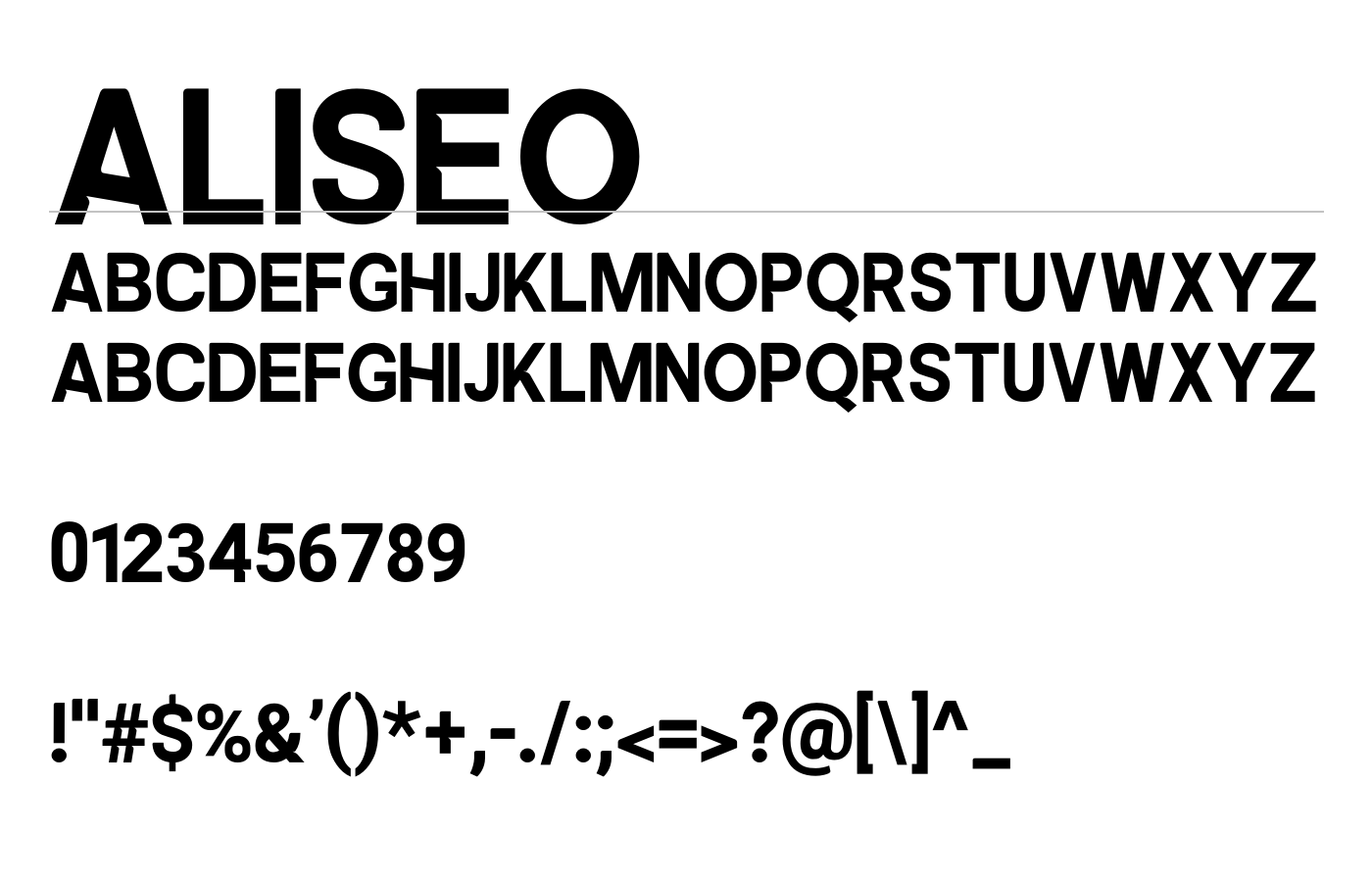
ALISEO is a bold, condensed sans serif font with strong geometric shapes and a solid presence. Its high x-height and tight letter spacing create a compact, modern look that feels assertive yet clean, making it ideal for impactful headlines, branding, and editorial use where clarity and strength are essential. The font’s sharp edges and uniform stroke weight lend it a contemporary, professional personality suited for dynamic, confident design projects.
ALISEO Font
About ALISEO Font
| Font family | ALISEO Font |
| Designer | Robin Campistron |